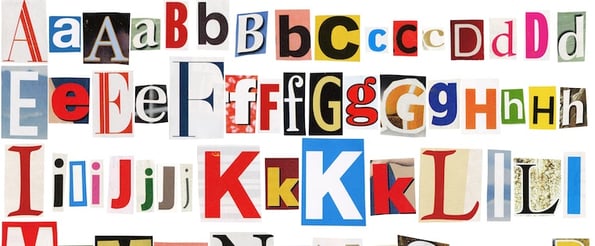
How to Choose the Perfect Fonts for Every Project: A Detailed Guide [Infographic]
When it comes to delighting people with design, details matter -- a lot. The fonts you choose every time you lay out an email, an ebook, or an image for social media end up giving your marketing a polish that makes a big difference.
Trouble is, with so many options to choose from, finding the right one isn't always as obvious as we'd like it to be. Thankfully, there are a few guiding principles out there to simplify the selection process.
For example, headlines should be bold and engaging, while body text needs to be clear and easily readable. If you're creating content for the web, you'll want to use the fonts that have been adapted specifically for use online -- meaning they’ll display the same on all modern browsers.
So, which are the best header fonts? The best body copy fonts? Which fonts do popular websites use, and what personalities do each of them reflect?
Check out the infographic below from Creative Bloq to learn everything from the best fonts for headers, body copy, and print, to the future of fonts in an increasingly mobile world. (And read this blog post to learn tips for choosing and using fonts.)